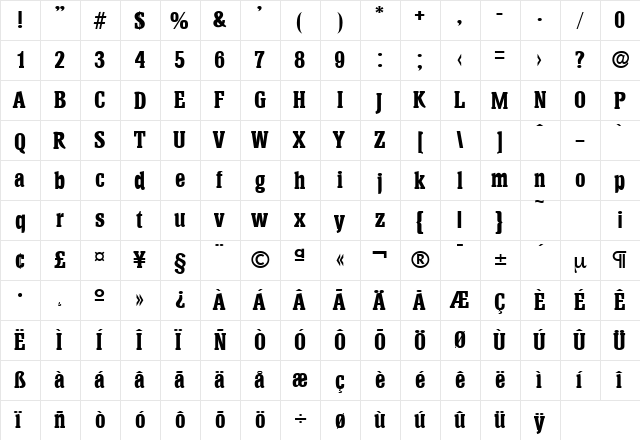
Helium-Serial-ExtraBold Regular
Design Context for Helium-Serial-ExtraBold Typeface
Helium-Serial-ExtraBold takes a measured approach to typography — its balanced proportions and neutral character make it a reliable workhorse for both digital and print work. The heavy weight commands attention and anchors typographic hierarchies.